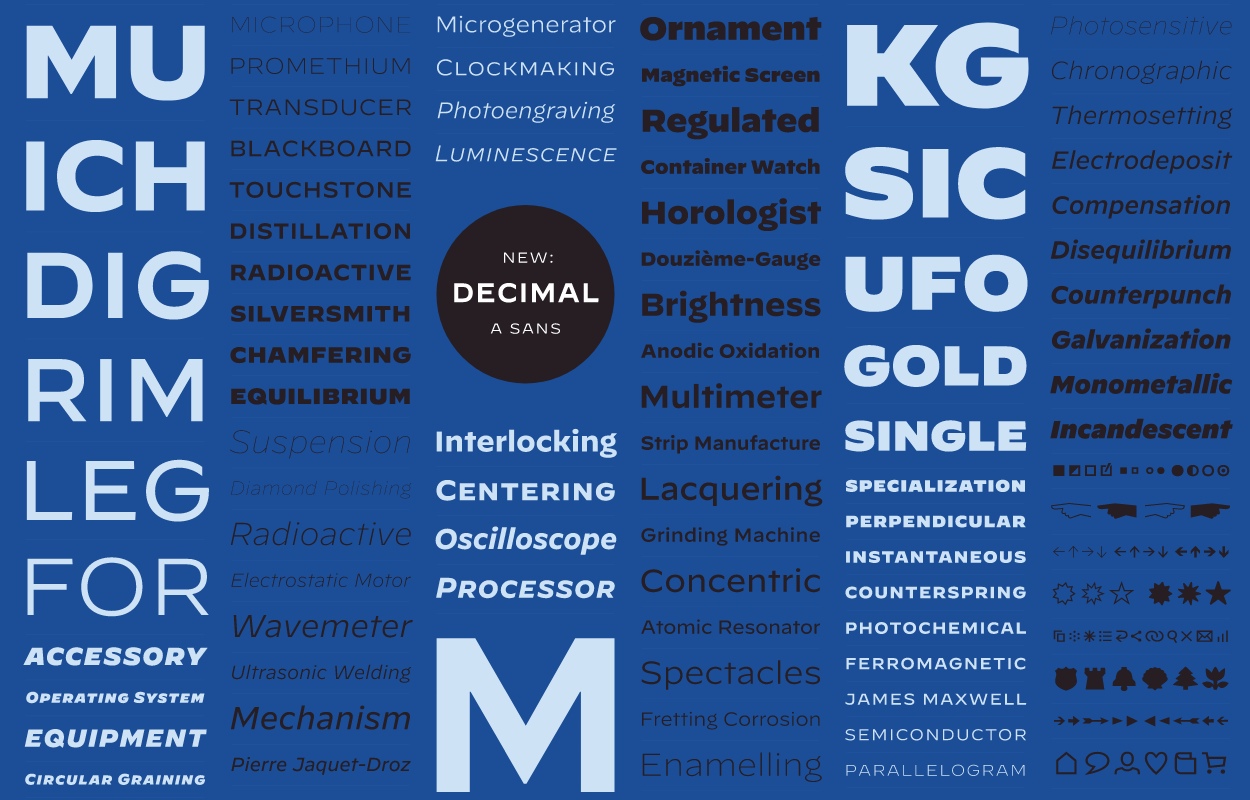
Decimal Pro Font
Decimal Pro Font is perfect for financial institution branding, accounting software interfaces, banking documentation, investment firm presentations, statistical report formatting, and data visualization dashboards. This precise typeface works exceptionally well in spreadsheet applications, financial analysis charts, and professional calculator displays.
What makes Decimal Pro Font so exciting is its exceptional numerical clarity and mathematical precision that ensures perfect alignment and readability in complex financial contexts. The font features meticulously crafted numerals with consistent spacing, clear decimal points, and optimized tabular figures that create flawless data presentation. Its professional aesthetic demonstrates remarkable attention to financial detail, making it ideal for institutions seeking to convey accuracy, trustworthiness, and mathematical excellence.
Decimal Pro Font comes in multiple weight variations including Light, Regular, Medium, Bold, and Black styles. The font family also includes specialized tabular numerals, currency symbols, mathematical operators, and financial notation support that enhance accounting functionality and provide extensive possibilities for data-driven design applications.
This professional typeface brings financial precision into contemporary business design projects, offering designers a specialized tool for creating credible monetary identities. The Decimal Pro Font Free Download provides an excellent opportunity to experience its numerical excellence and financial applications before making a purchase decision. Whether you're designing for banks, investment firms, or accounting services, this font delivers unmatched financial clarity.
The font's optimized construction ensures perfect numerical alignment across complex financial documents while maintaining exceptional readability in both digital and print applications. Professional designers appreciate its comprehensive character support and specialized financial features that ensure accuracy in international monetary contexts.
Decimal Pro Font has become the go-to choice among creative professionals working with financial and accounting brands. Its ability to convey numerical precision and professional reliability makes it an invaluable asset for organizations seeking to establish trustworthy, authoritative identities in demanding financial markets.